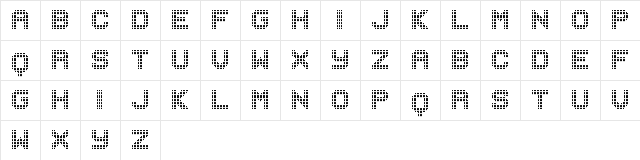
MUSICNET Regular
| Designer | GeronimoFonts |
Design Context for MUSICNET Typeface
MUSICNET takes a measured approach to typography — its balanced proportions and neutral character make it a reliable workhorse for both digital and print work.